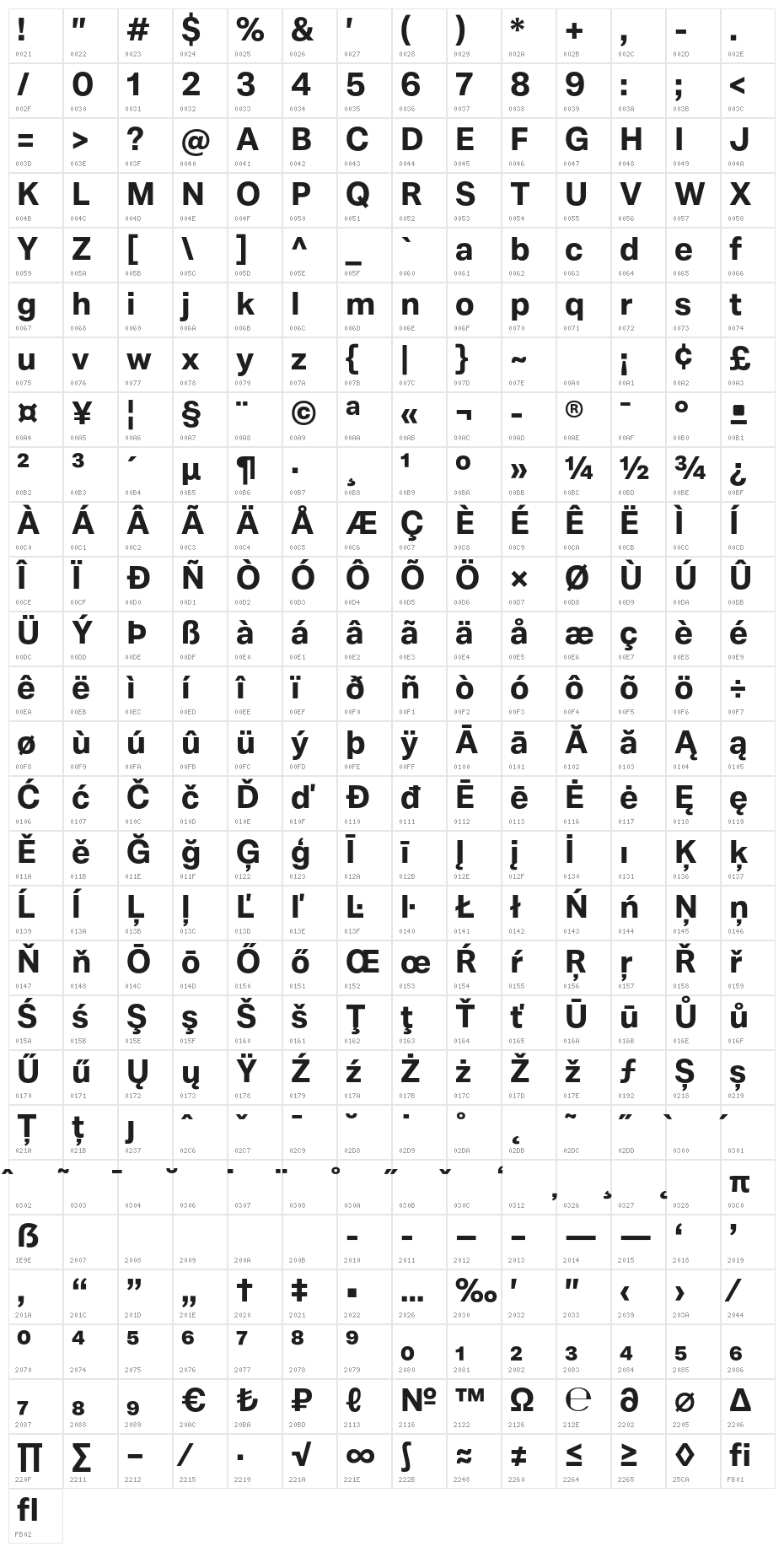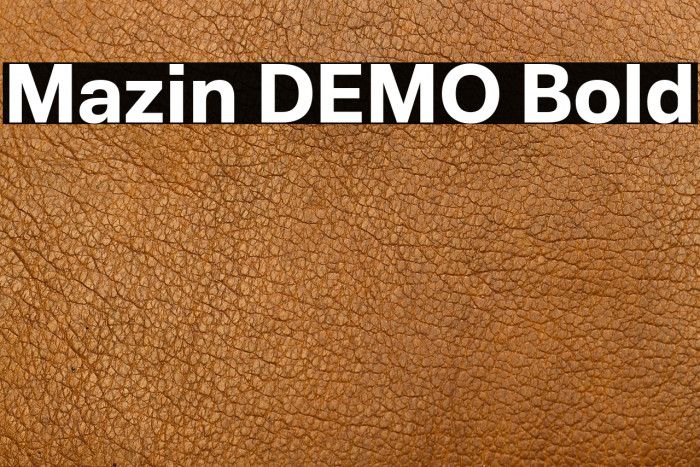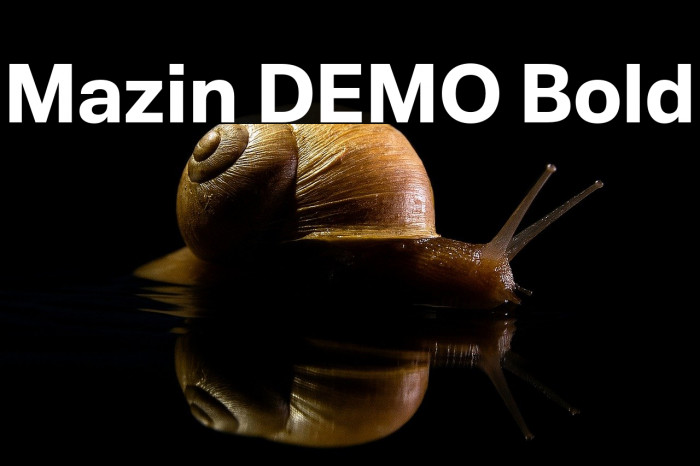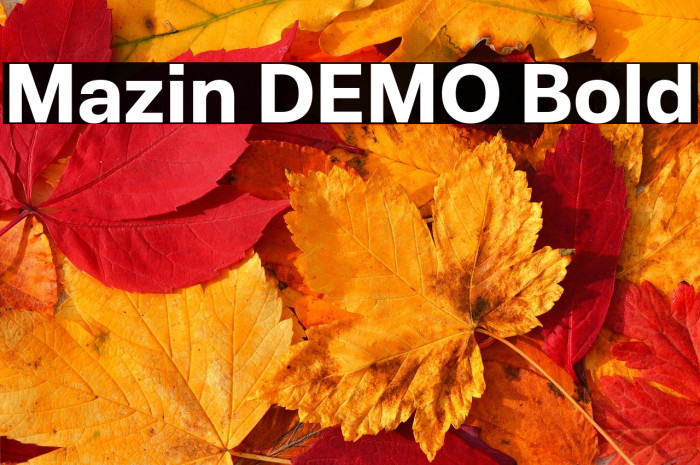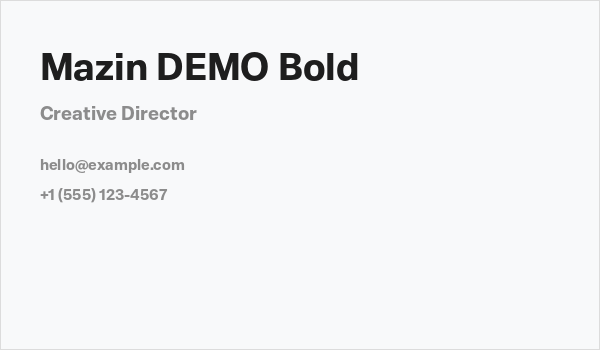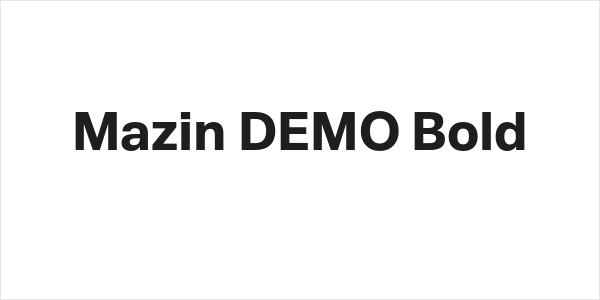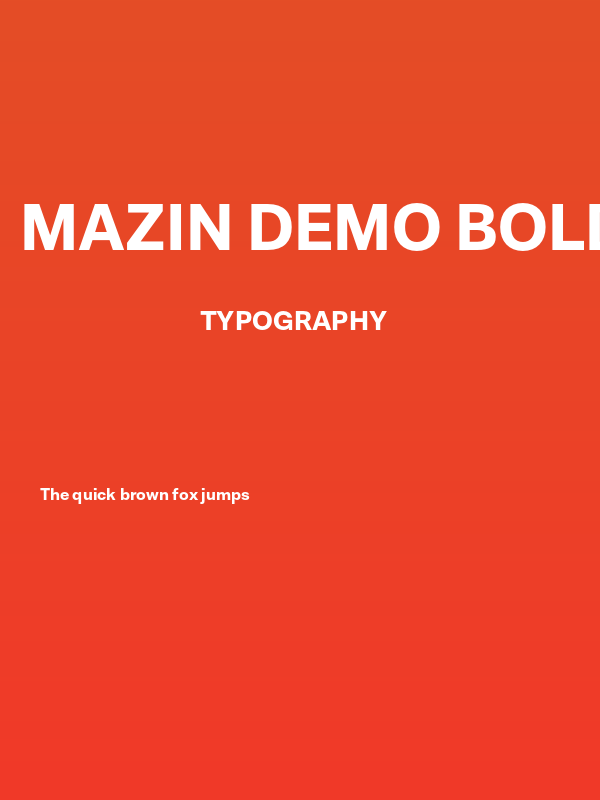
Mazin DEMO Bold Font
Mazin DEMO Bold Description
This font features a bold and assertive style with clean, geometric lines and a modern aesthetic. The uppercase and lowercase letters are well-proportioned, with a consistent stroke width that conveys strength and stability. The numerals are clear and easy to read, making them suitable for a variety of applications. Special characters are included, maintaining the same boldness and clarity as the alphanumeric characters. The overall design is straightforward and impactful, making it ideal for attention-grabbing headlines and branding.
| Proposed Projects | Ideal for branding, advertising, headlines, and any project requiring a strong visual impact. |